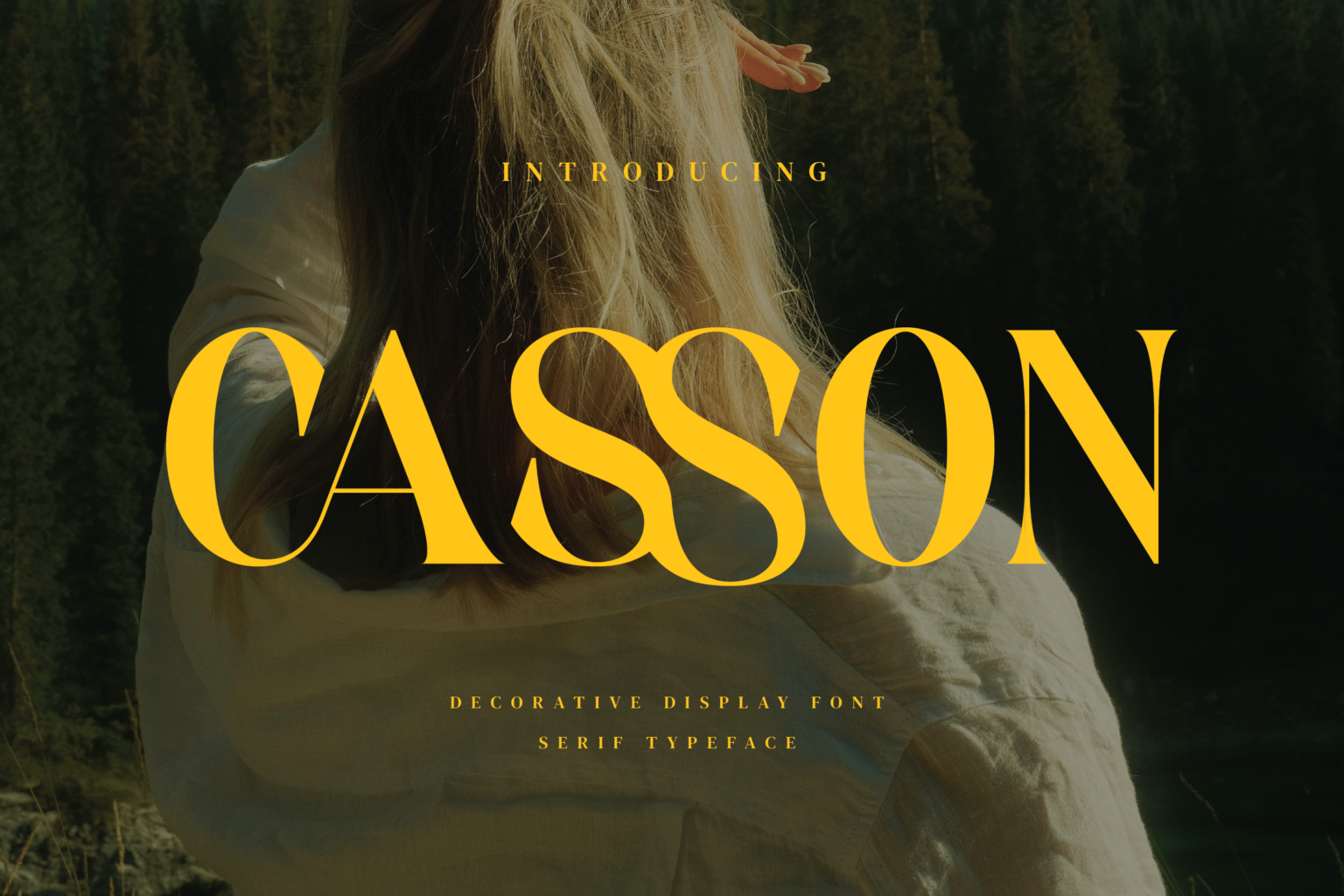
Casson – Classic Serif Font
Casson – Classic Serif Font is a distinctive and expressive font crafted to bring personality, structure, and creative energy into your projects. Casson Stylish Ligature Typeface, inspired by the famous minimalist logo perfect for the purposes of designing templates, brochures, videos, advertising branding, logos and more.